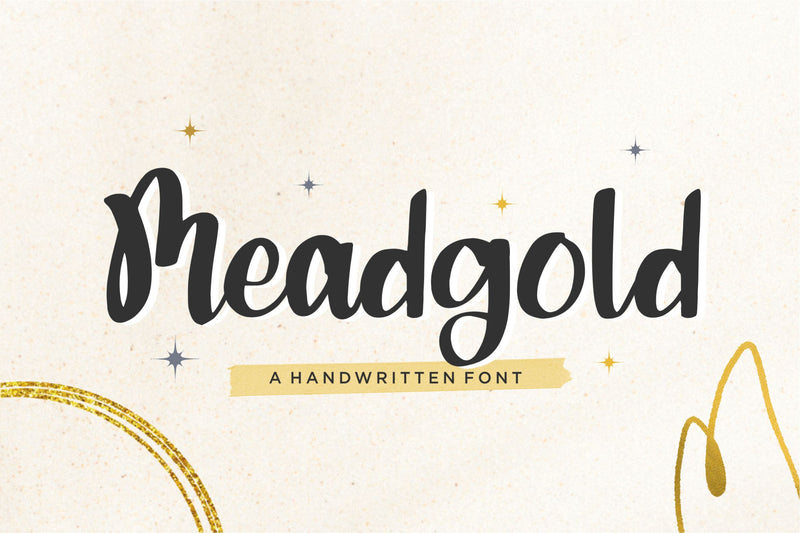
Meadgold
Proudly Present, Meadgold
Meadgold is a Handwritten Font
Meadgold is perfect for product packaging, branding project, megazine, social media, wedding, or just used to express words above the background.